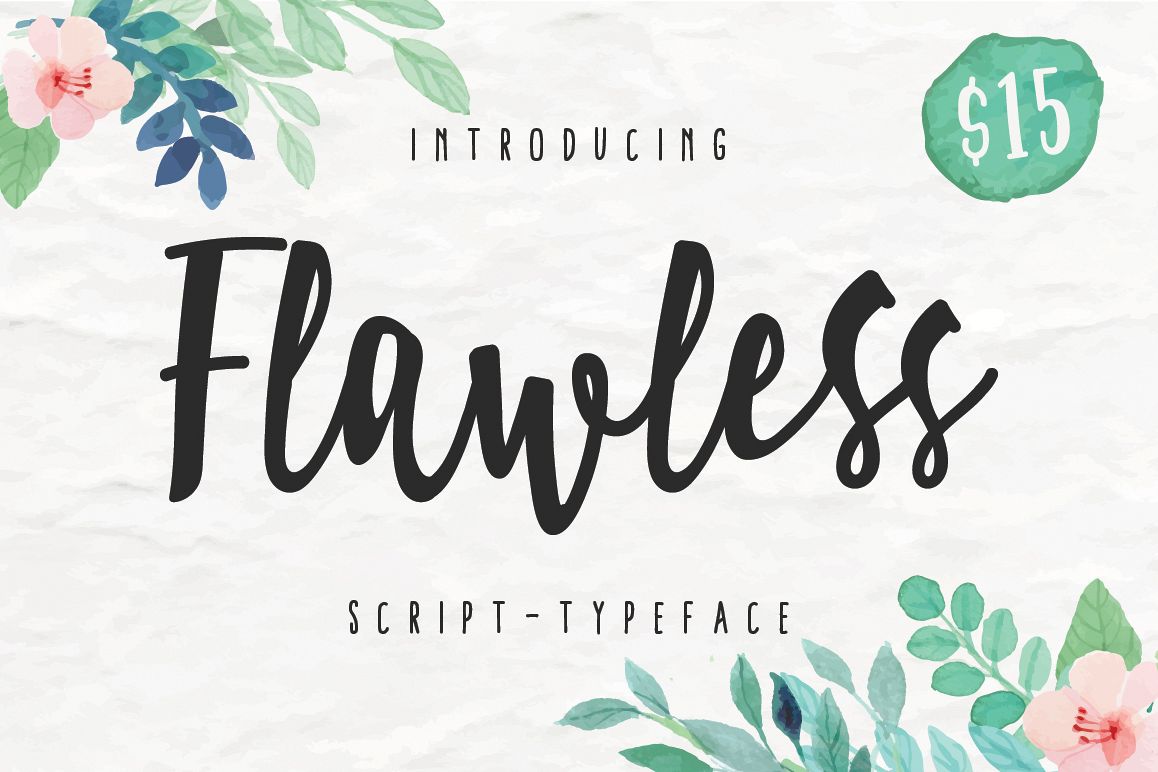
Flawless Script
Flawless
introducingFLAWLESS SCRIPT is handwriting brush script, can make it easier to convey the message in your design. use this font for awesome wedding card, poster, etc.Flawless Script include:
• Uppercases & Lowercases
• Numerals & Punctuations